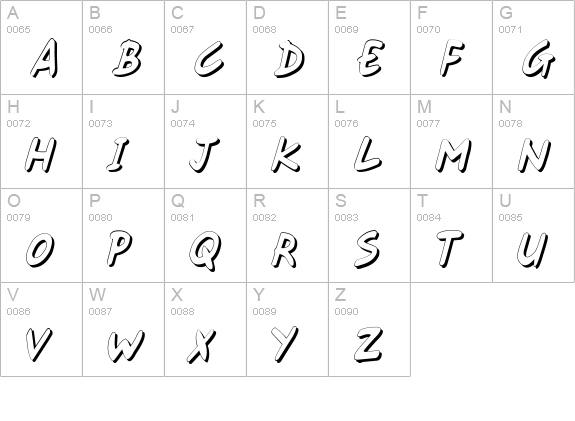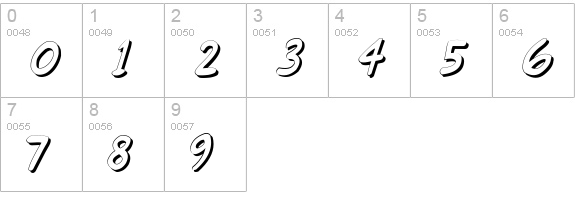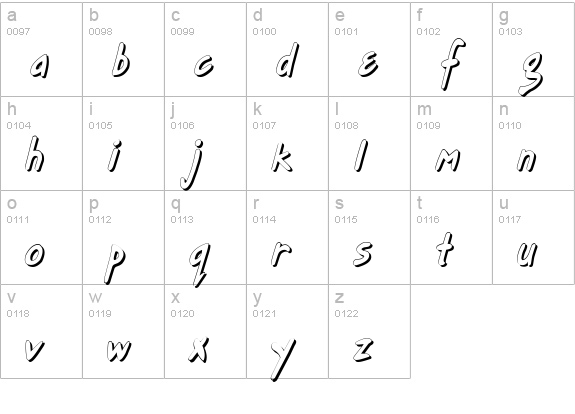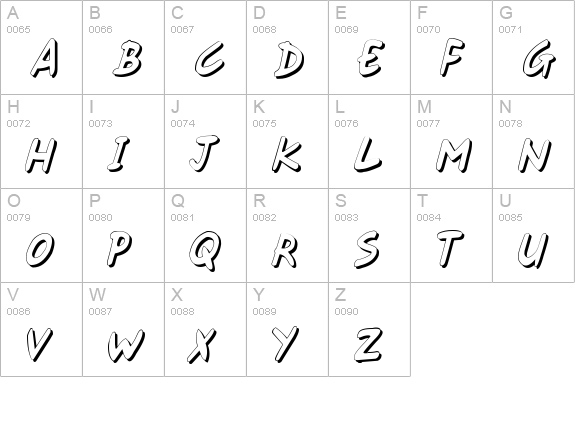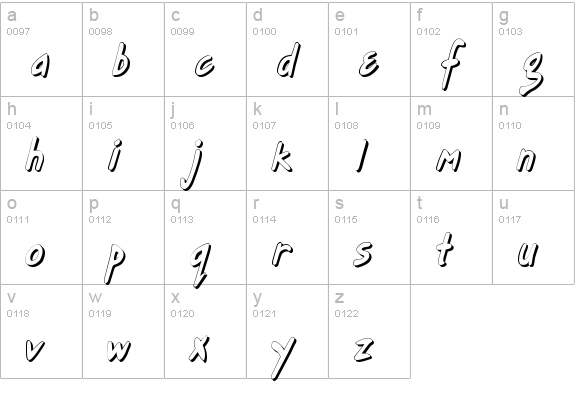
Gort's Fair Hand Shadow Font Details
Gort's Fair Hand Shadow font is a whimsical and charming typeface that brings a playful touch to any design project. With its intricate shadow effects and elegant letterforms, this font captures the essence of classic hand shadows cast against a soft light. The unique combination of delicate lines and bold shadows creates a striking visual impact, making it perfect for adding a touch of magic to invitations, posters, and more. What sets Gort's Fair Hand Shadow font apart is its versatility and attention to detail. Each letter is carefully crafted to maintain legibility while also showcasing the intricate interplay between light and shadow. The result is a font that is both eye-catching and easy to read, making it suitable for a wide range of design applications. Best of all, Gort's Fair Hand Shadow font is available for free download at FontsMarket.com. Whether you're a seasoned designer looking to add a whimsical touch to your projects or a hobbyist exploring new creative possibilities, this font is sure to inspire and delight. Download it today and let your imagination take flight with Gort's Fair Hand Shadow font.